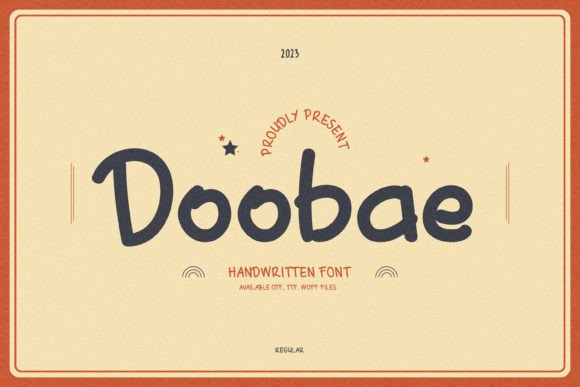
Prepare to be mesmerized by Doobae Font, a delightful handwritten font family that exudes playfulness and charm. Crafted with precision by inferno.type3, this script font is an exceptional choice for infusing life into your creative projects.
Step into a world of whimsical elegance with Doobae Font, where your words dance off the page with a touch of carefree flair. Its meticulously designed curves and loops lend an organic, personal feel to any text, making it the perfect companion for wedding invitations, birthday cards, and heartfelt letters.
Unleash your creativity with Doobae Font and transform your skincare company branding into a work of art. Its charming style adds a touch of sophistication to product labels, brochures, and social media posts, leaving a lasting impression on your customers.
Elevate your culinary creations with Doobae Font, the perfect font for food labels and packaging. Its playful nature complements the vibrant colors and flavors of your culinary masterpieces, inviting taste buds to embark on an unforgettable journey.
Doobae Font is not merely a font; it's an expression of individuality, a reflection of your unique style. Use it to design logos that stand out from the crowd, capturing the essence of your brand with a single glance.
With Doobae Font, possibilities are boundless. Let your imagination soar and create designs that captivate and inspire. Its handwritten charm adds a touch of warmth and personality to any project, making it a must-have for designers, crafters, and creative entrepreneurs alike.